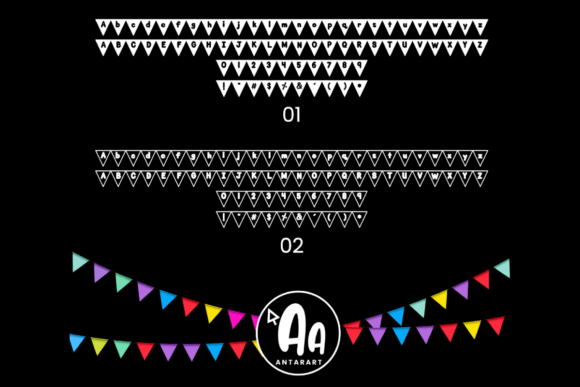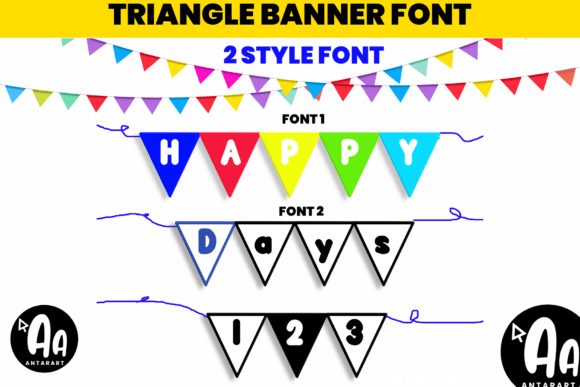
Unlock Creative Possibilities with the Abcd Ref Triangle Banner1 Font
Have you ever been in the midst of designing a project, only to find that the perfect font was elusive? I recall a particularly frustrating experience while working on a classroom banner for a client’s daughter’s school event. The design needed something special, something that would make it stand out from the usual bland bulletin boards. That’s when I stumbled upon the Abcd Ref Triangle Banner1 Font, and it completely transformed my design.
A Game-Changing Font for Designers, Crafters, and Hobbyists
The Abcd Ref Triangle Banner1 Font is a unique and versatile font that comes in two stylish styles: Basic and Outlined. This font is perfect for creating eye-catching bulletin board titles, classroom banners, wall displays, and party decorations. Each letter is beautifully designed inside a stylish triangular pennant, making it effortless to design custom bunting, motivational posters, door décor, party banners, and subject headers.
What I Love About the Abcd Ref Triangle Banner1 Font
- ✨ Versatility: Available in two styles (Basic and Outlined), this font offers flexibility for various design projects.
- ✅ Ease of Use: The font is printable, editable, and reusable, making it perfect for designers, teachers, and event planners.
- 🎉 Endless Creative Possibilities: Ideal for back-to-school displays, seasonal and holiday decorations, themed classroom organization, and personalized learning spaces.
While the Abcd Ref Triangle Banner1 Font is incredibly useful, there are a few minor considerations to keep in mind:
- ⚠️ Learning Curve: If you’re new to using OpenType features or glyphs, it might take some time to get familiar with the font’s capabilities.
- 🤔 Compatibility: Ensure your design software supports OpenType features to fully utilize the font’s stylistic alternates and glyphs.
The Designer Inspiration Behind Abcd Ref Triangle Banner1 Font
The Abcd Ref Triangle Banner1 Font was inspired by the desire to bring a touch of whimsy and professionalism to educational and event settings. The designer aimed to create a font that would not only be visually appealing but also highly versatile, allowing users to effortlessly create custom banners and decorations.